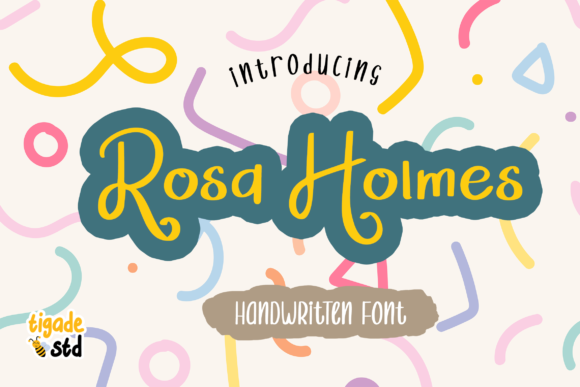
Introducing Rosa Holmes Font, the enchanting script font that will captivate your senses and elevate your designs to new heights. This exquisite creation by Tigade std. is a symphony of smooth curves and elegant lines, inspired by the allure of fashion branding and the sophistication of editorial designs.
With Rosa Holmes, you'll have the power to transform your words into works of art. Its delicate strokes and playful personality are sure to add a touch of charm and whimsy to any project. Whether you're crafting posters, logos, invitations, or social media graphics, Rosa Holmes will add a touch of magic that will leave your audience spellbound.
Immerse yourself in a world of creativity as you let Rosa Holmes dance across your screen. Watch in awe as it effortlessly blends fashion and elegance, bringing your visions to life with its mesmerizing allure. Rosa Holmes is more than just a font; it's an experience that will ignite your imagination and leave you breathless.
Don't settle for ordinary fonts that fail to inspire. Embrace the beauty of Rosa Holmes and unlock a realm of endless possibilities. Let your creativity flourish as you explore the depths of this captivating font. Discover the joy of crafting designs that speak to the heart and leave a lasting impression.
Rosa Holmes is not just a collection of letters; it's an invitation to embark on a creative journey where your imagination knows no bounds. Seize the opportunity to own this remarkable font today and unleash the boundless potential within your designs. Step into a world where fonts come alive, and let Rosa Holmes guide you towards greatness.